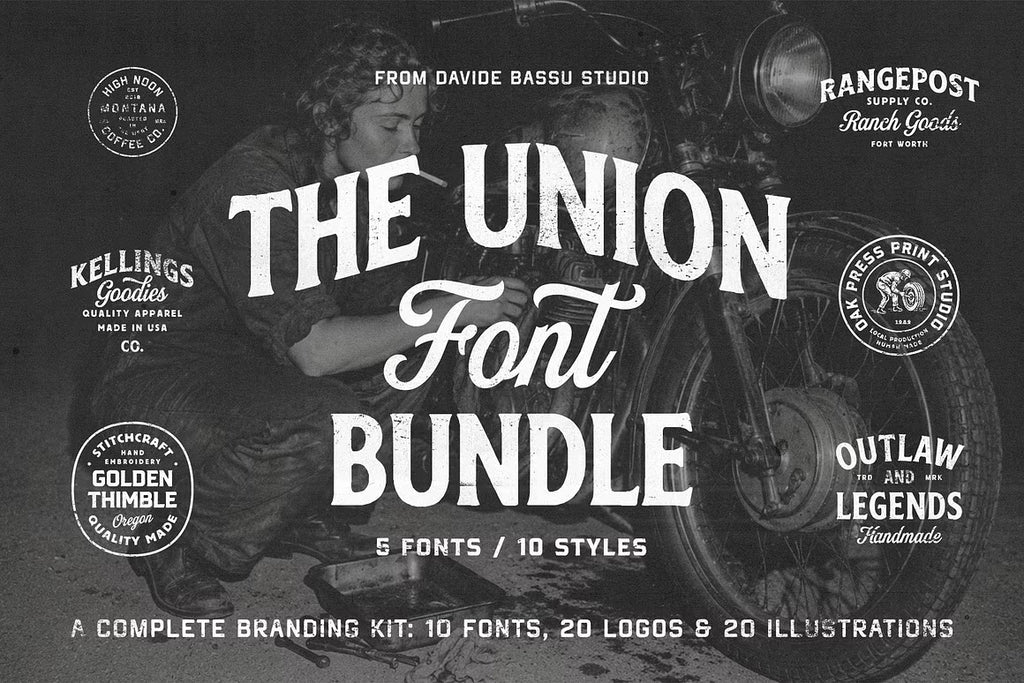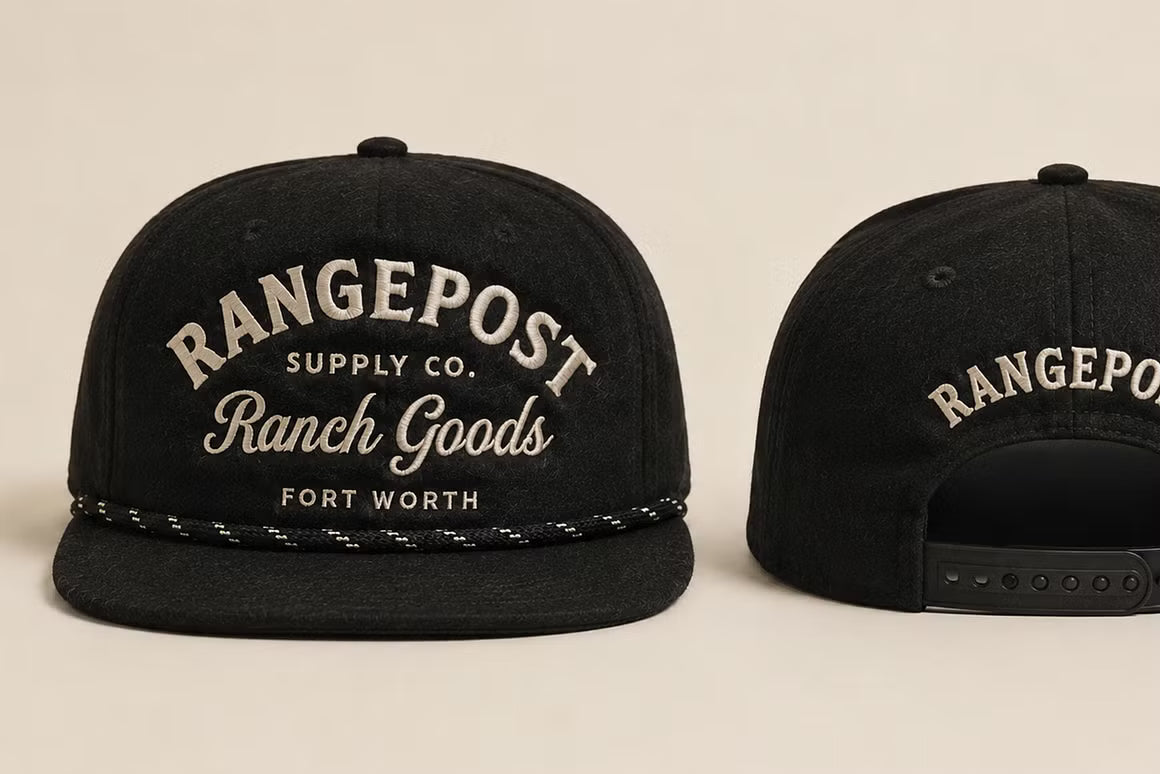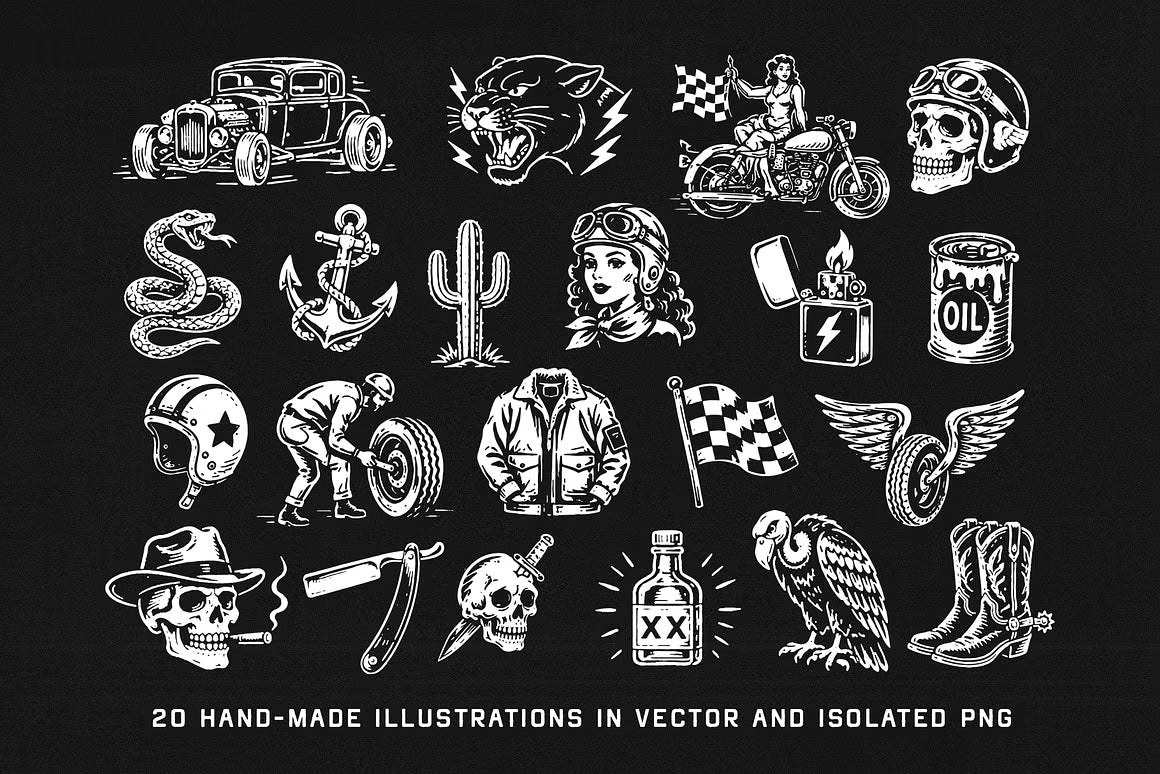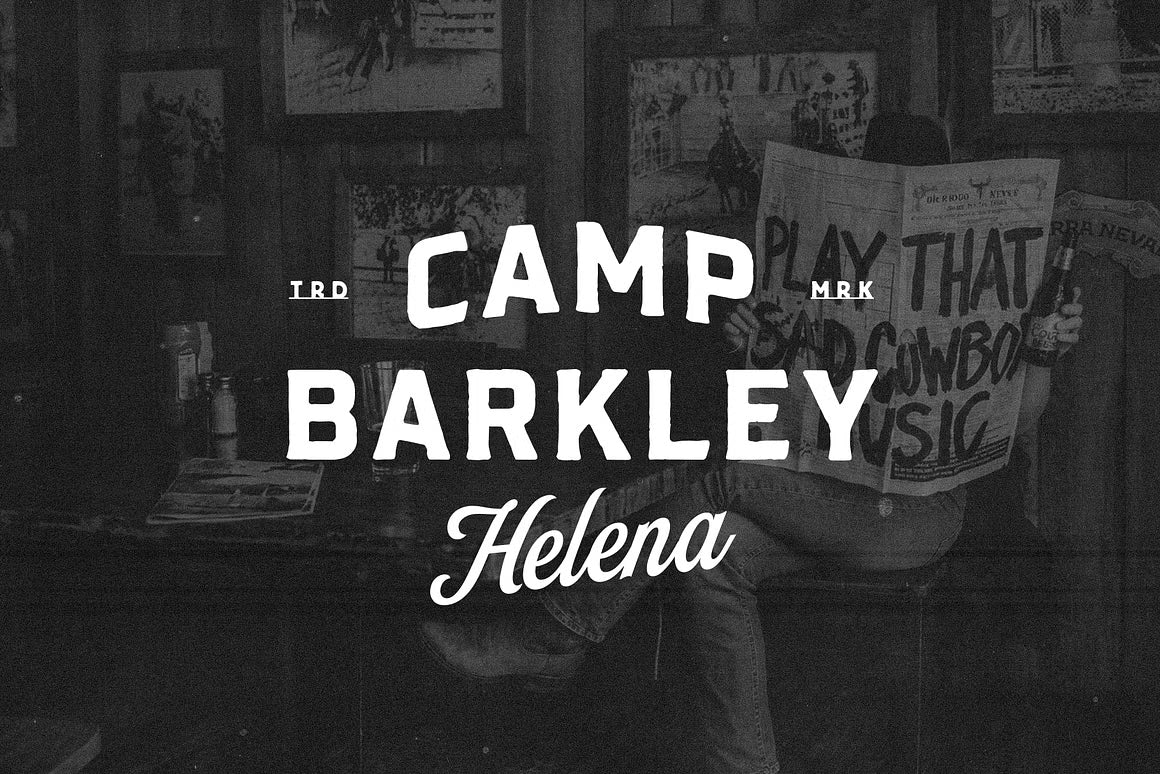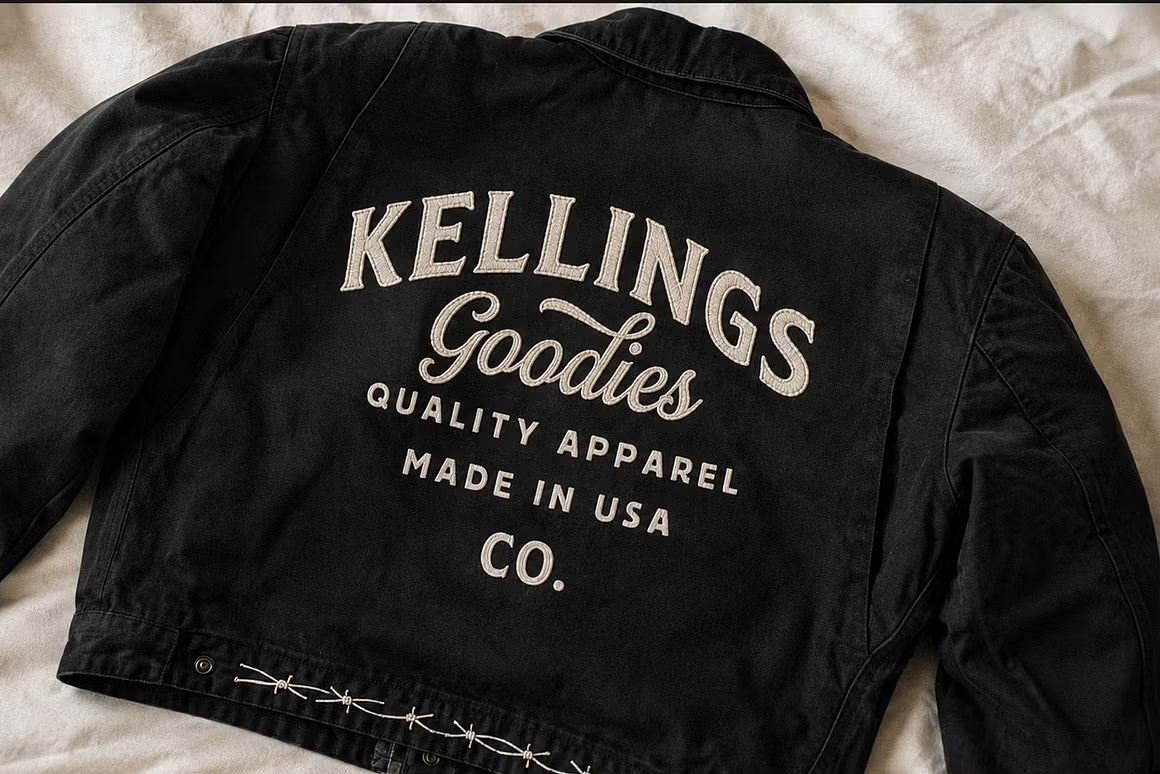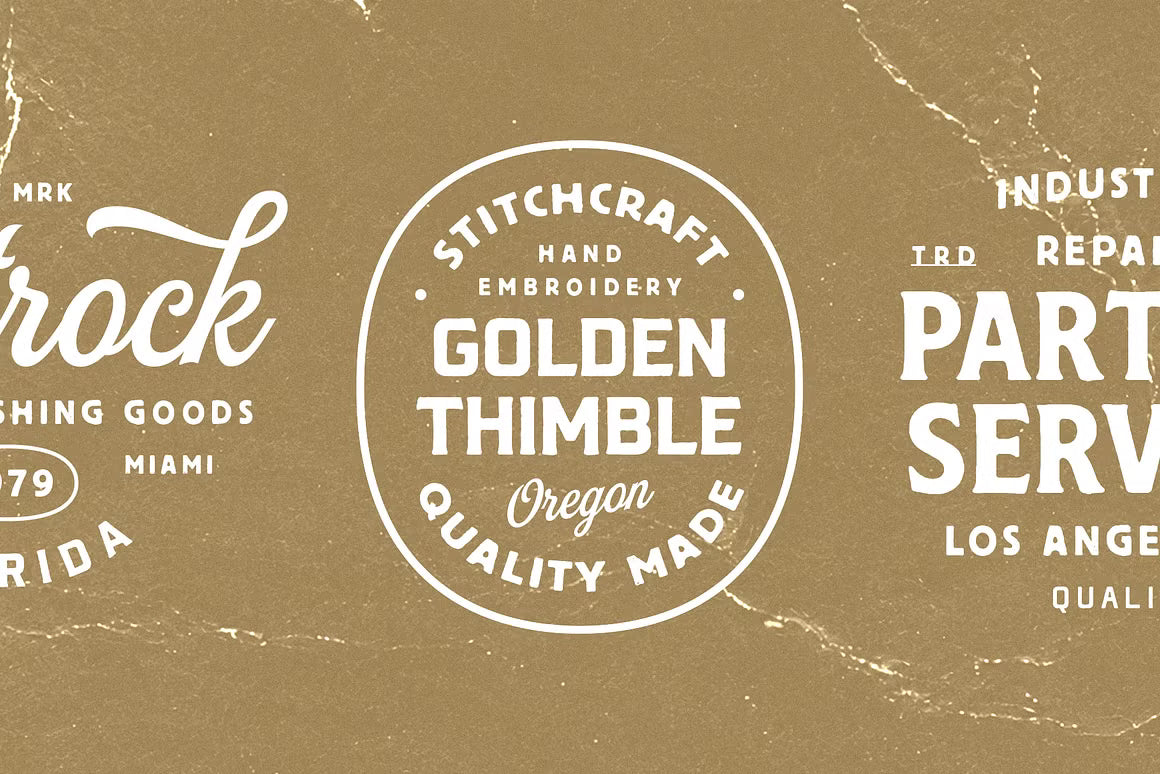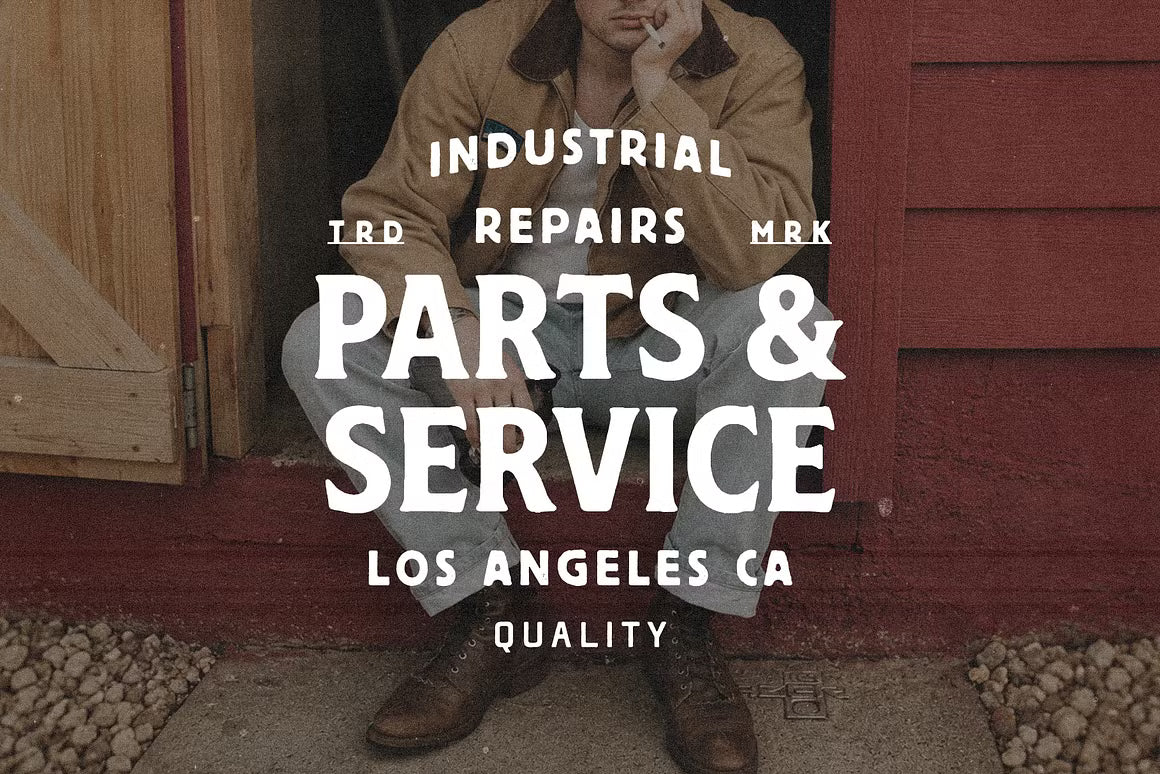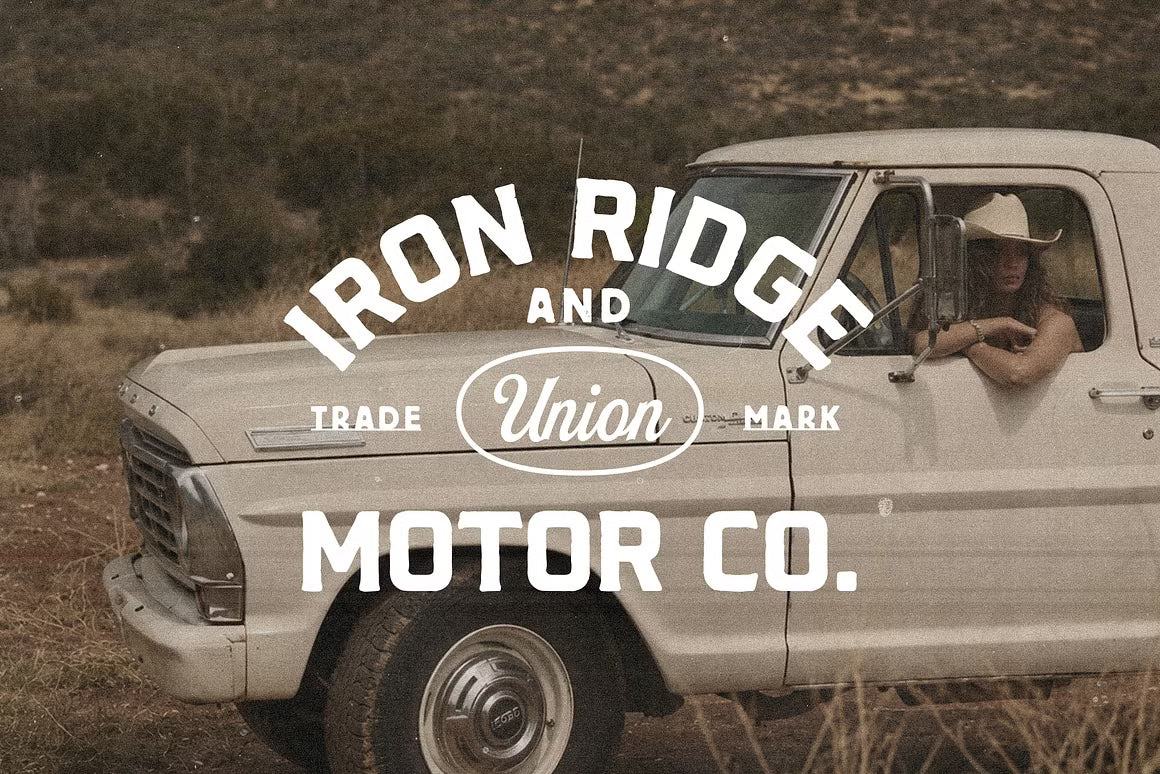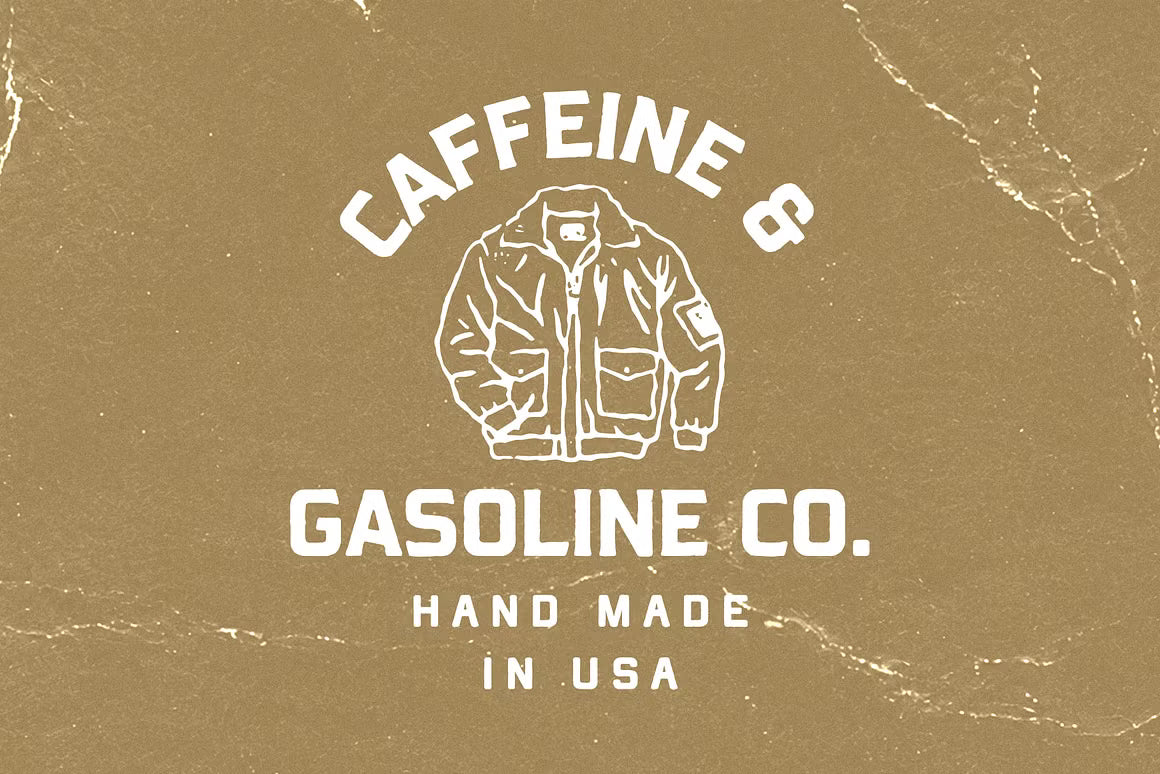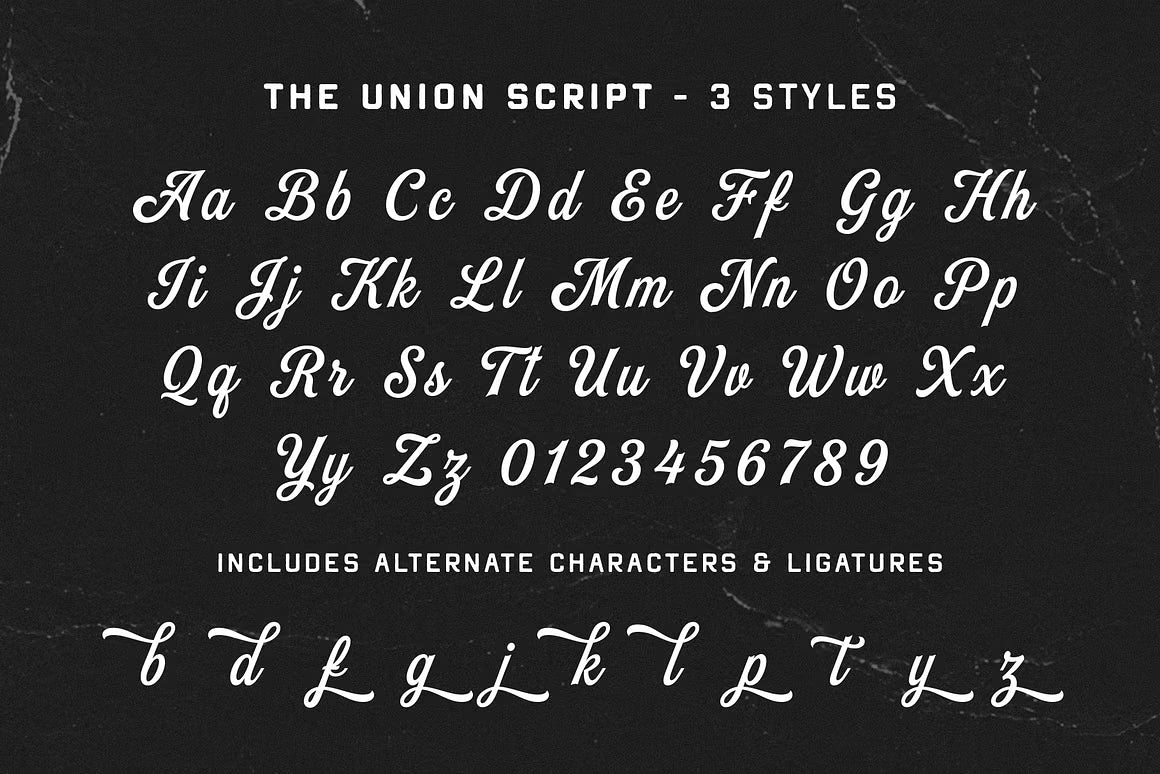
The Union Font Bundle + Extra
The Union Font Bundle + Extra is a rich, heritage-inspired collection that brings together multiple handcrafted fonts, vintage logo templates, and retro illustrations. Drawing from classic American workwear, motorcycle culture, ranch life, and old-school craftsmanship, this bundle is perfect for creating bold, authentic branding with real character and depth.
You get a full arsenal — 5 font families with 10 styles, 20 editable vintage logo templates, and 20 hand-drawn illustrations featuring motorcycles, eagles, western icons, and more. Everything is designed to mix seamlessly, making it easy to build cohesive identities for apparel brands, coffee roasters, workshops, outdoor companies, or any project that celebrates rugged American heritage.
A complete creative toolkit for designers who want their work to feel timeless, gritty, and full of story.